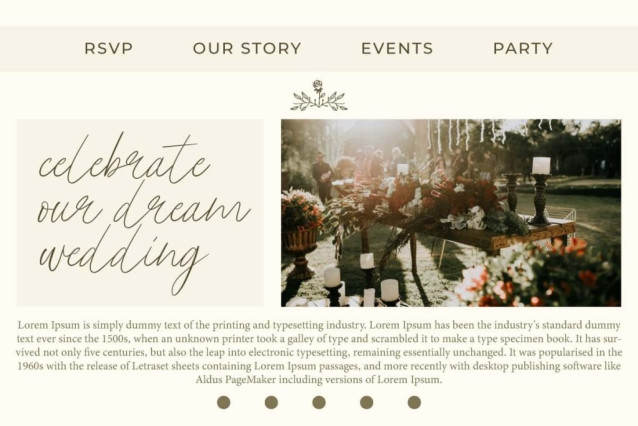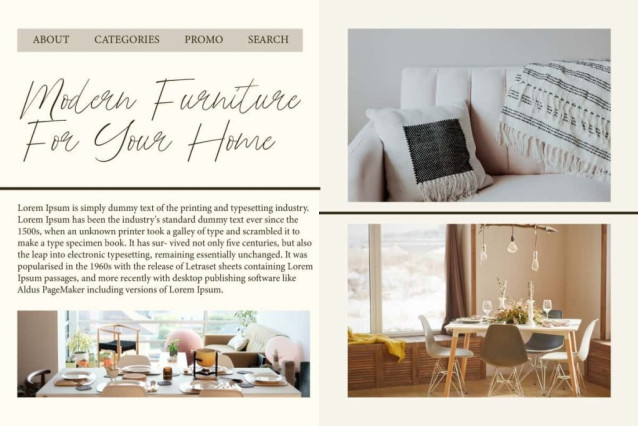
Carania Dianti Font
Carania Dianti Font is a casual and modern signature handwriting, presenting a sophisticated and stylish script style font trend that is perfect for apps, banners, blogs, brochure, covers, flyer, headers, invitation, logos, mockup, packaging, product label, template, title, watermark, website, and more.
Carania Dianti Font includes a complete set of Basic Uppercase and Lowercase Characters, Numbers, Punctuation, and Symbols. It features a personal touch and graceful design, a pure approach just like the original handmade! Perfect for architecture, cosmetic, fashion, florist, graphic design, home furniture, real estate, restaurant, skincare, wedding planner, and much more.